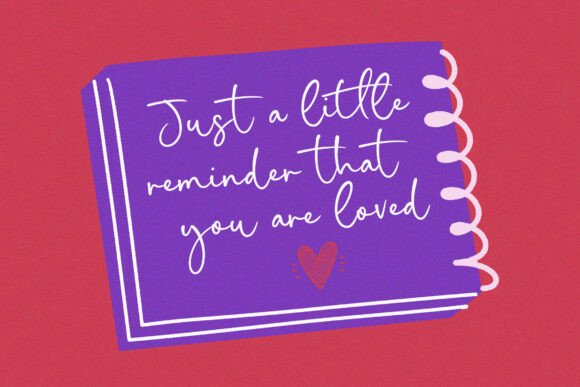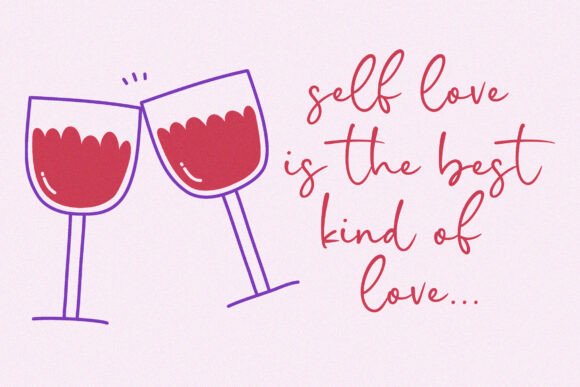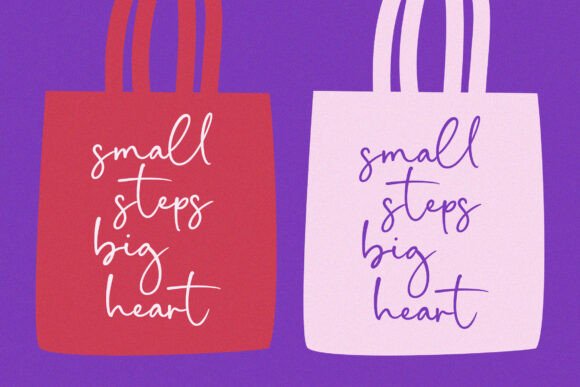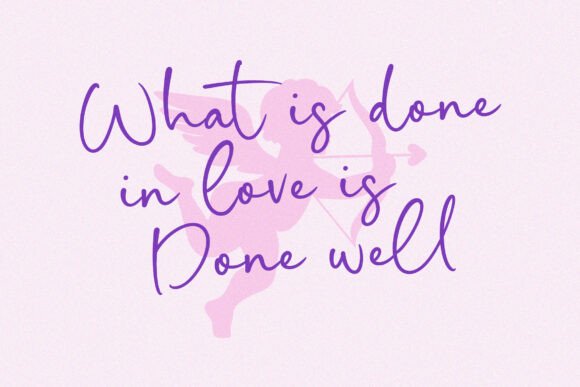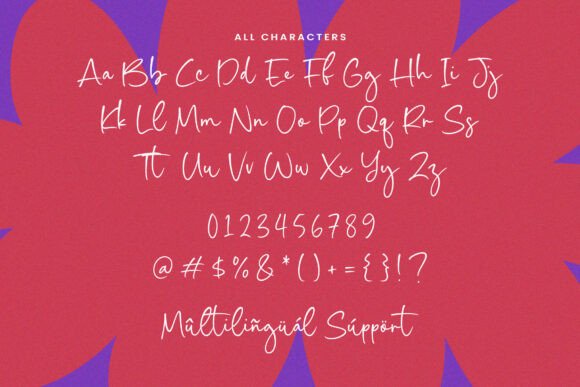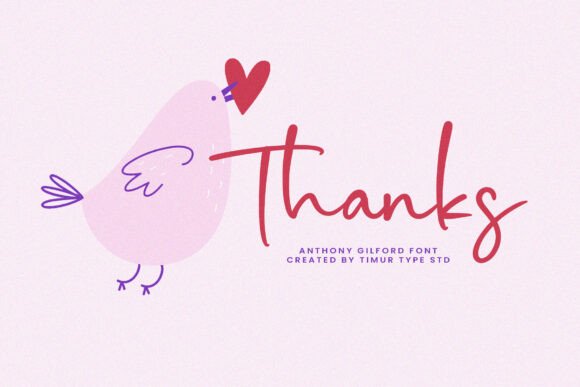
The Charm of Anthony Gilford Font: A Designer’s Delight
I still remember the time I was working on a wedding invitation project, and I just couldn’t find the right font to capture the elegance and warmth of the occasion. The client wanted something that felt personal and sophisticated, but everything I tried seemed either too formal or too bland. That’s when I stumbled upon Anthony Gilford Font, and it was love at first sight! ✨
This lovely handwritten script font exudes charm and elegance with its fluid, natural strokes and graceful curves. It’s perfect for invitations, logos, and personal projects, bringing a warm, personal touch to any design.
- ✨ Fluid and natural strokes that give it a hand-written feel
- ✅ Elegant and charming, perfect for upscale projects
- 💫 Highly legible, even at smaller sizes
- 🎨 Versatile and works well with a variety of design styles
While Anthony Gilford Font is amazing, there are a few things to keep in mind: 🤔
- ⚠️ It may not be the best choice for very long blocks of text, as it can be a bit ornate
- ⚠️ Some of the letters may require manual kerning for optimal spacing
- Take advantage of OpenType features, such as glyphs and stylistic alternates, to add more variety to your text
Anthony Gilford Font was designed with the goal of creating a font that felt both elegant and approachable. The designer wanted to capture the feeling of handwritten script, while still being legible and versatile. The result is a font that’s perfect for a wide range of design projects, from wedding invitations to logos and branding.
A: Anthony Gilford Font is ideal for projects that require a touch of elegance and sophistication, such as wedding invitations, logos, and personal stationery.
A: Yes, Anthony Gilford Font is highly legible, even at smaller sizes. However, it’s best suited for short to medium-length text, rather than long blocks of text.
A: Absolutely! Anthony Gilford Font pairs well with a variety of fonts, from simple sans-serifs to more ornate script fonts. Experiment with different combinations to find the look that works best for your project.